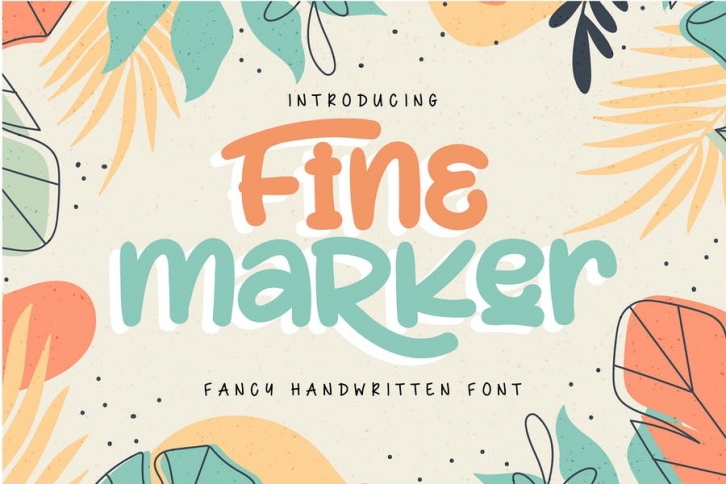
Fine Marker | Fancy Handwritten Font with a calligraphy style, So beautiful on invitation like greeting cards, branding materials, business cards, quotes, posters, and more!
- Alternates and Ligatures